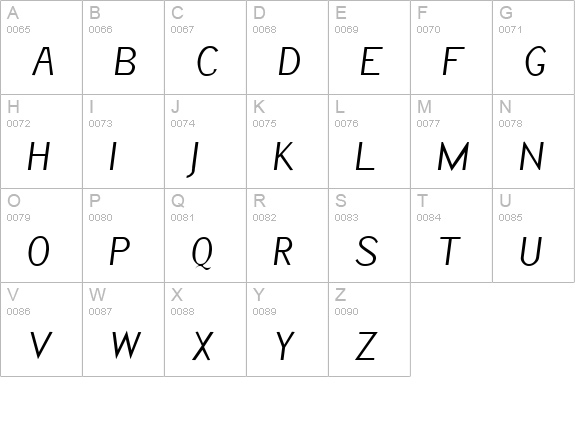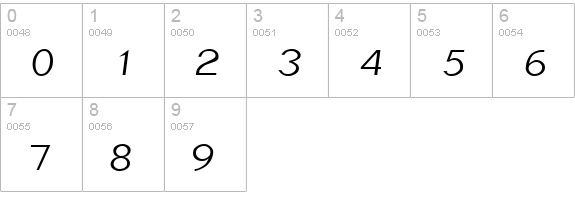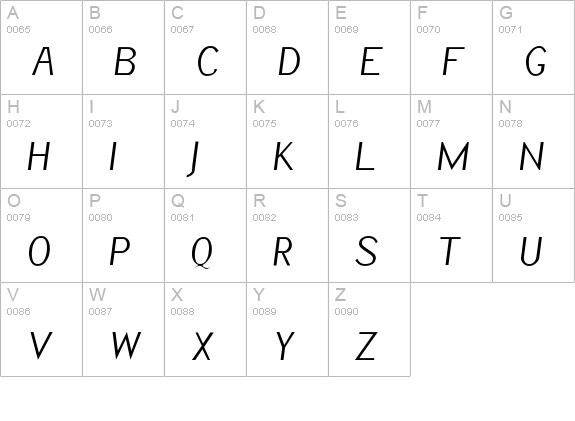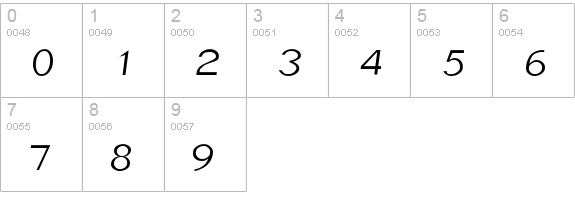
SlantInformal Regular Font Details
SlantInformal Regular is the standard, neutral variant in the SlantInformal typeface family \xE2\x80\x94 well suited to general body text, paragraphs, and standard typographic work.
SlantInformal Regular font is a stylish and versatile typeface that exudes a casual yet modern vibe. Its slanted and slightly distorted letterforms add a unique touch to any design project, making it perfect for everything from logos and headlines to social media graphics and branding materials. This font features a balanced blend of rounded edges and sharp angles, resulting in a harmonious and visually appealing aesthetic. The slightly condensed proportions make it ideal for fitting more text into limited spaces without sacrificing legibility. What sets SlantInformal Regular font apart is its sense of informality and approachability. It effortlessly captures a laid-back and friendly atmosphere, adding a touch of personality to any text. Whether you're designing for a hip coffee shop, a trendy fashion brand, or a creative agency, this font will help you achieve a contemporary and eye-catching look. And the best part? SlantInformal Regular font is free to download at FontsMarket.com. Now you can enhance your projects with this stylish font without breaking the bank. Don't miss the opportunity to make your designs stand out with this freely available typeface. Download SlantInformal Regular font today and let your creativity soar!